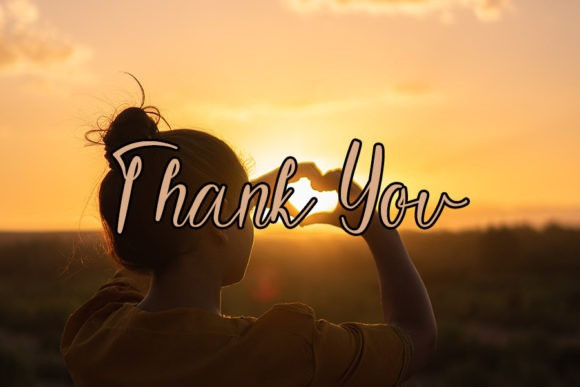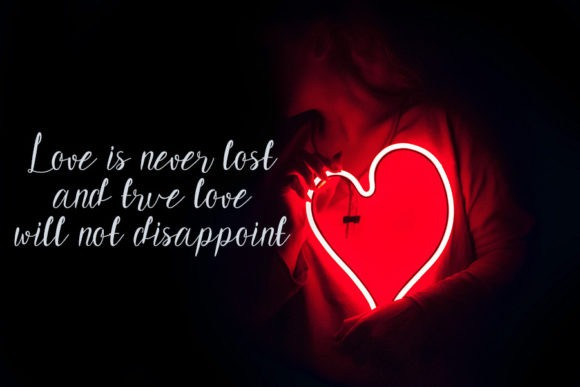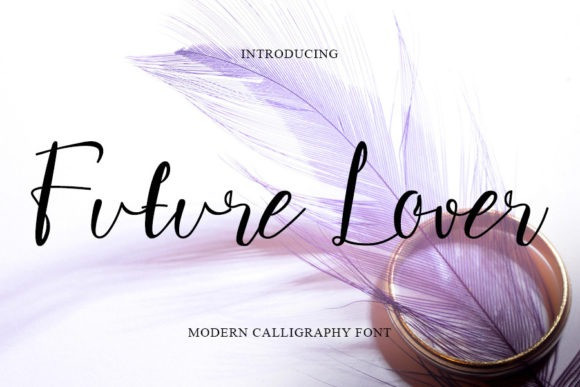
Future Lover Font
Future Lover Script Font is a stylish and incredibly elegant script font. It looks stunning on wedding invitations, thank you cards, quotes, greeting cards, logos, business cards and every other design which needs a handwritten touch.